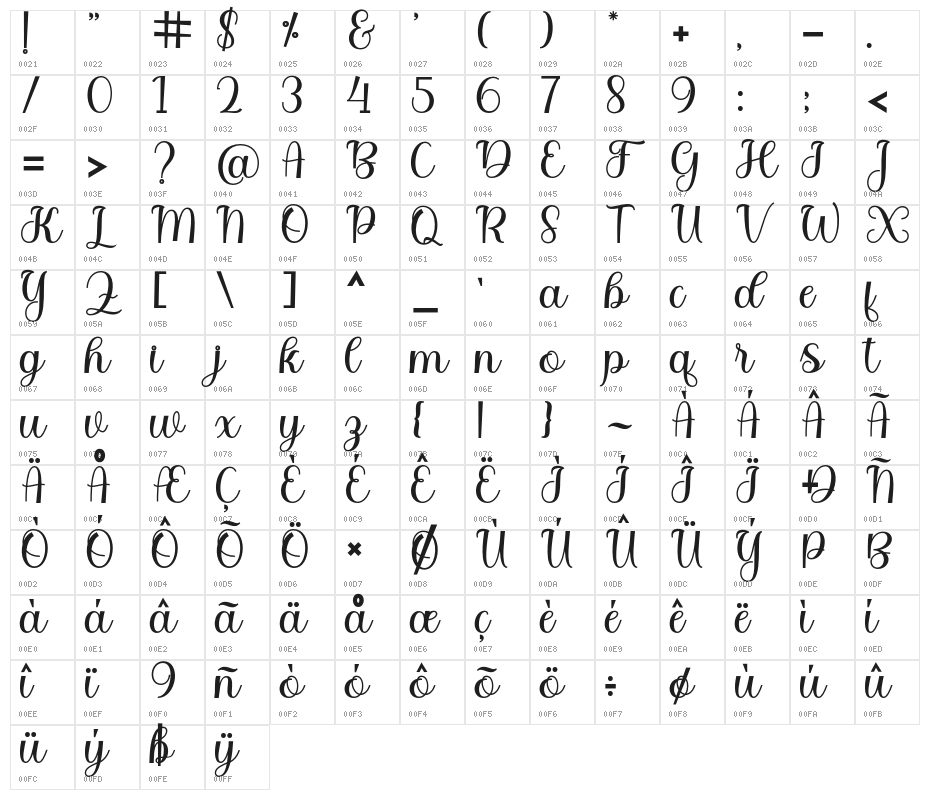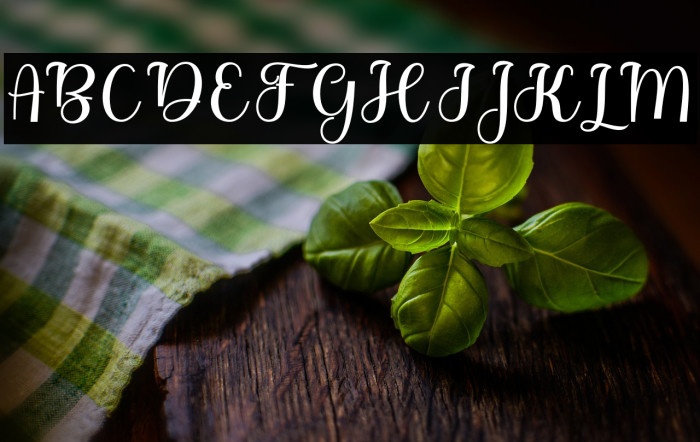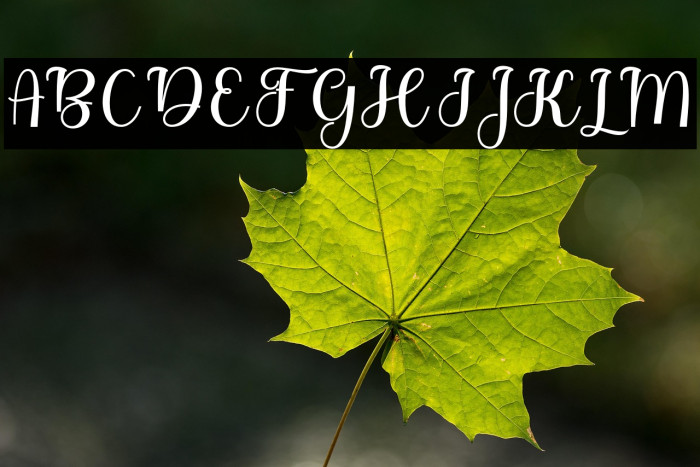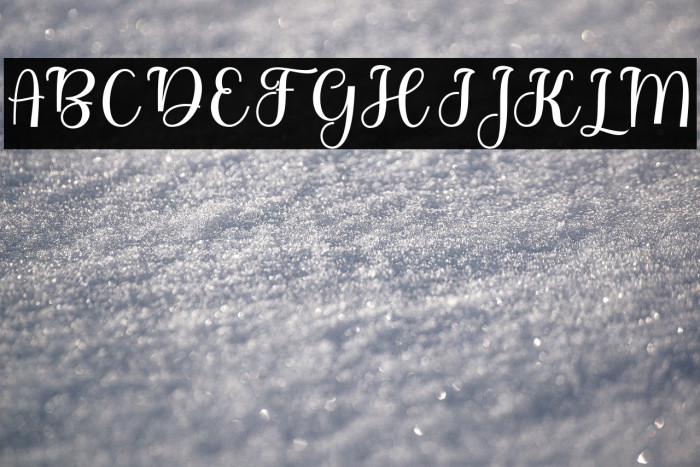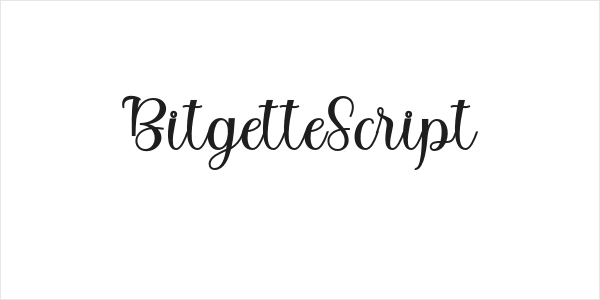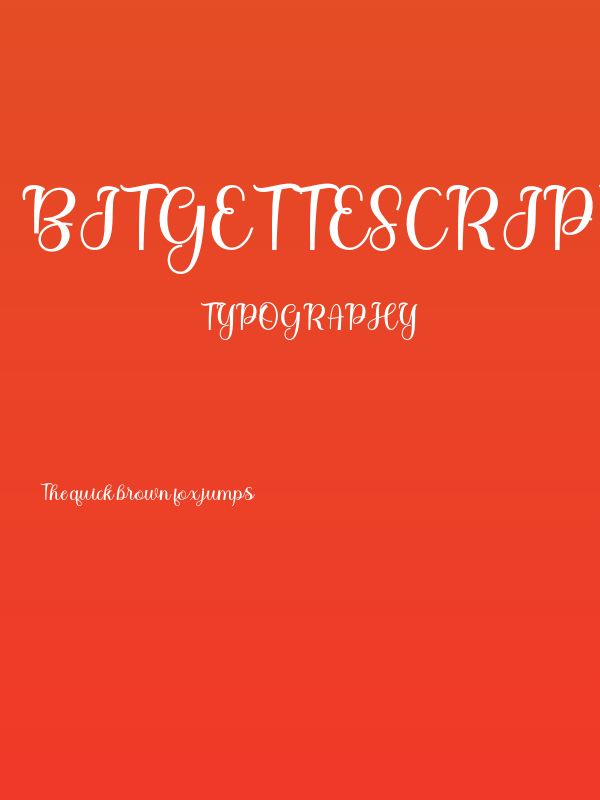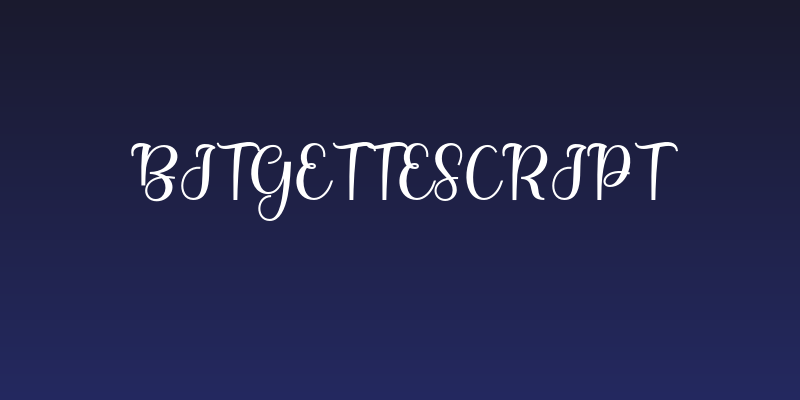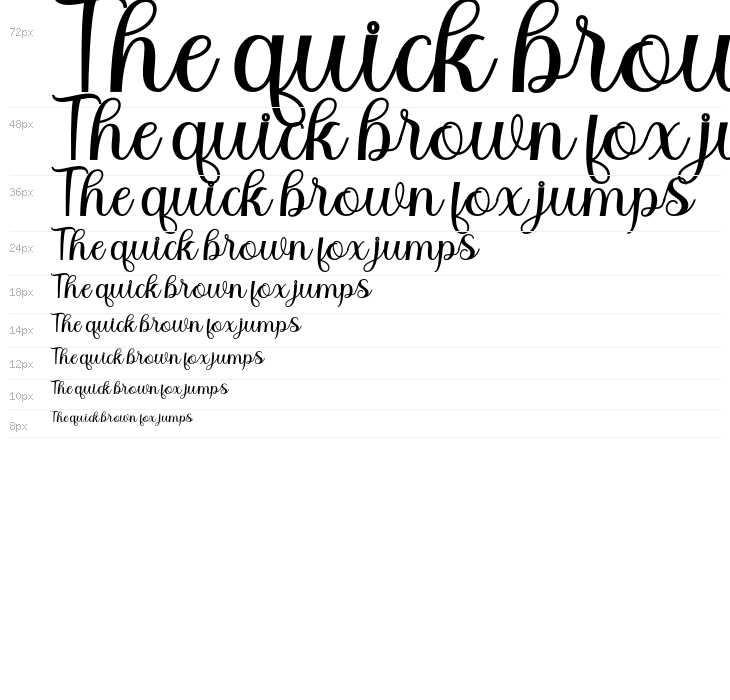
BitgetteScript Font
BitgetteScript Description
This elegant script font features a fluid and graceful design, characterized by its smooth, flowing curves and loops. The uppercase letters exhibit a sophisticated flair with extended strokes, while the lowercase letters maintain a consistent rhythm, enhancing readability. The numerals are distinct and harmonize well with the overall style, offering a cohesive look. Special characters are thoughtfully integrated, maintaining the font's aesthetic appeal. This font exudes a sense of elegance and charm, making it suitable for various creative applications.
| Overall Style | Elegant |
| Use Case | Logos, Invitations, Decorative text |
| Proposed Projects | Ideal for wedding invitations, greeting cards, branding, and elegant packaging designs. |